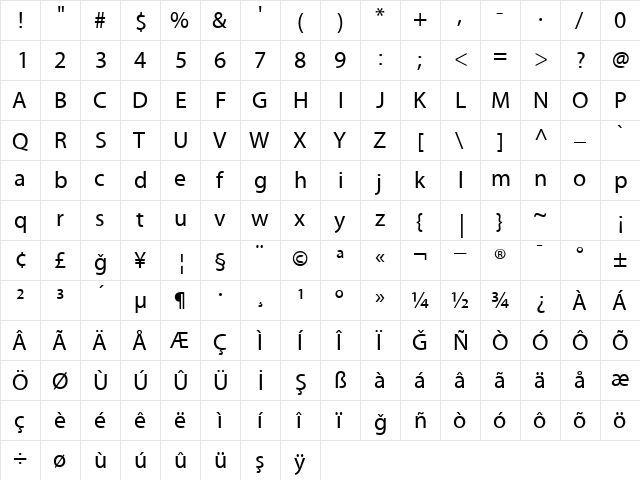
STVMyriad Normal
Design Context for STVMyriad Typeface
STVMyriad is a composed and adaptable typeface that performs quietly and consistently across a wide range of design contexts.